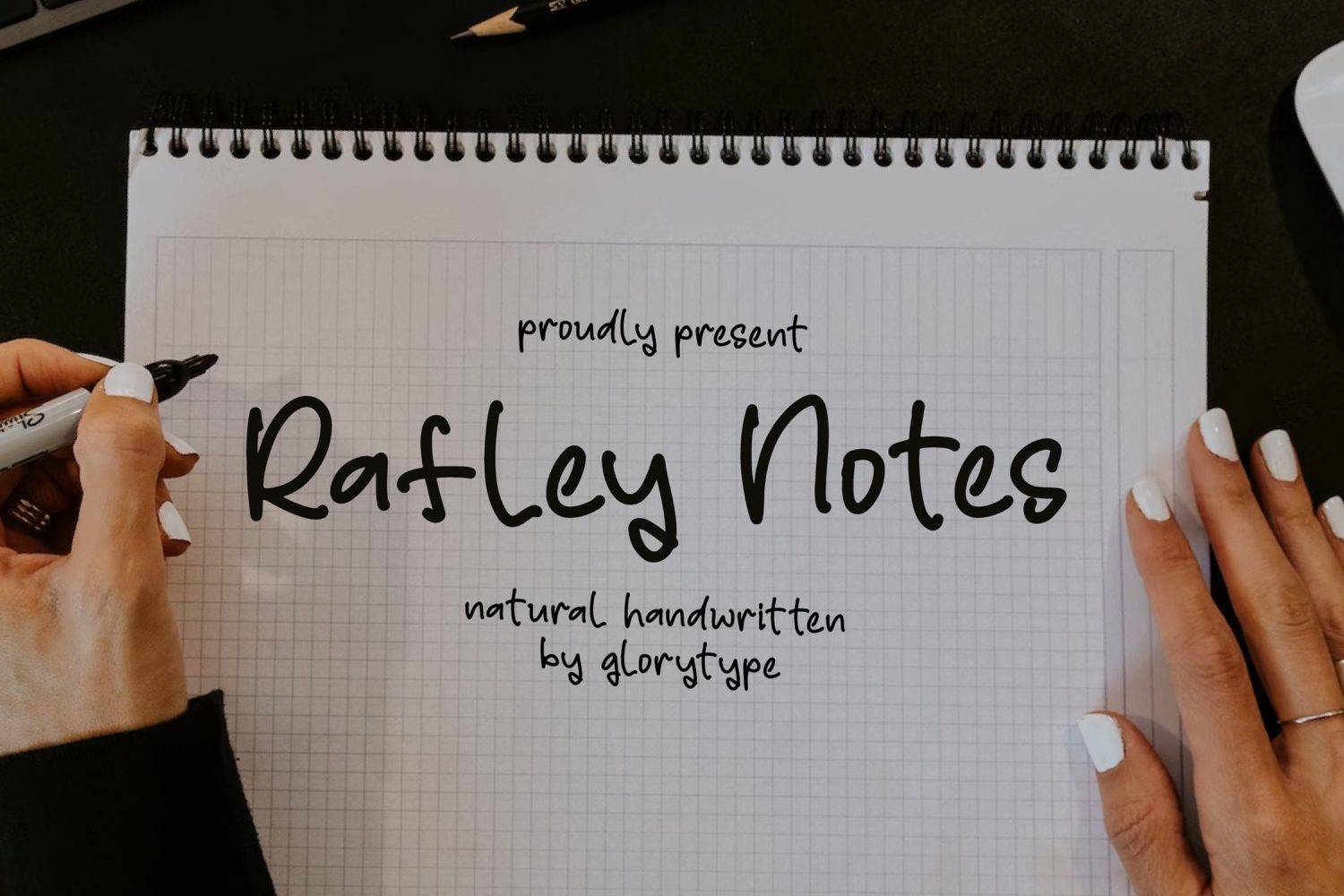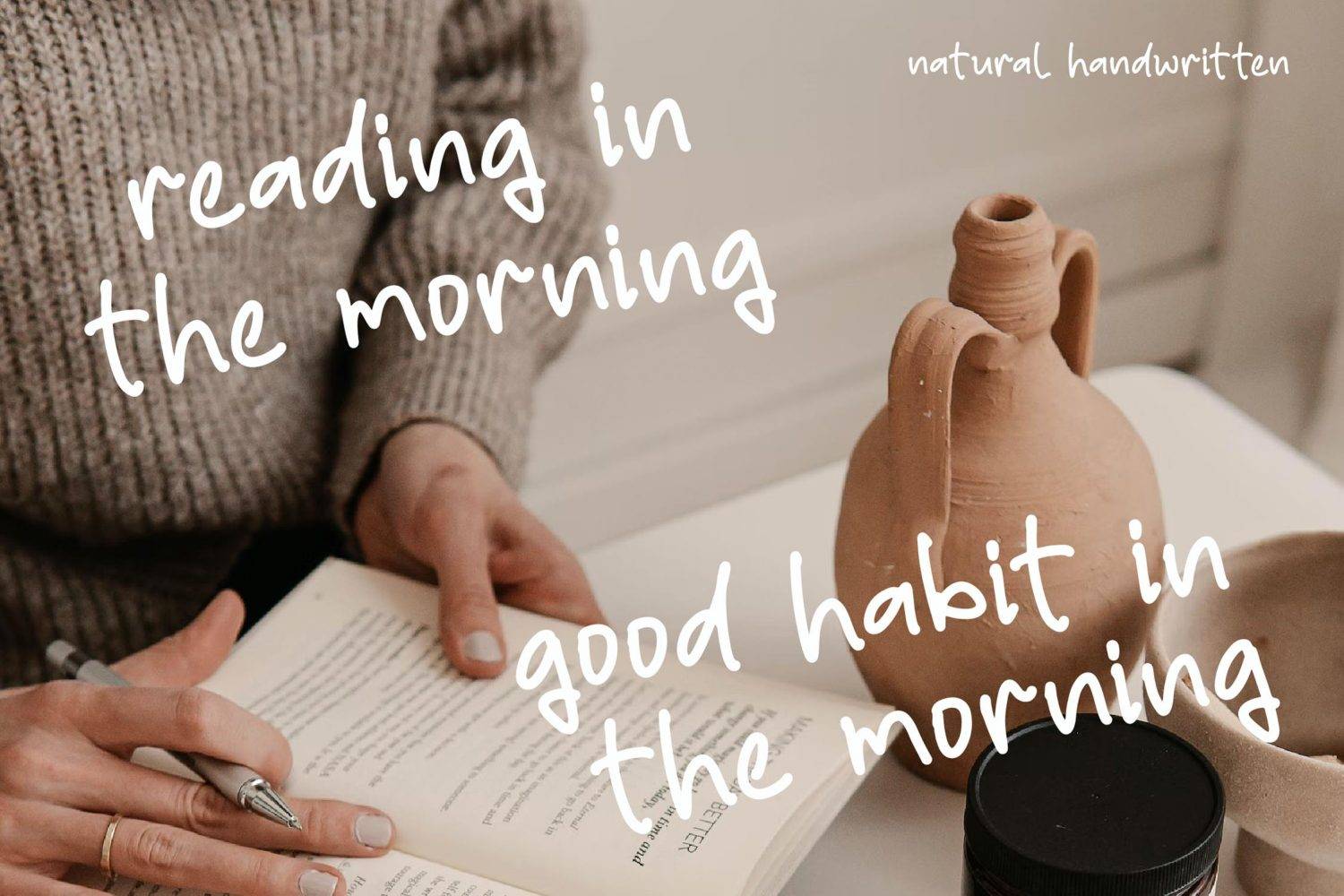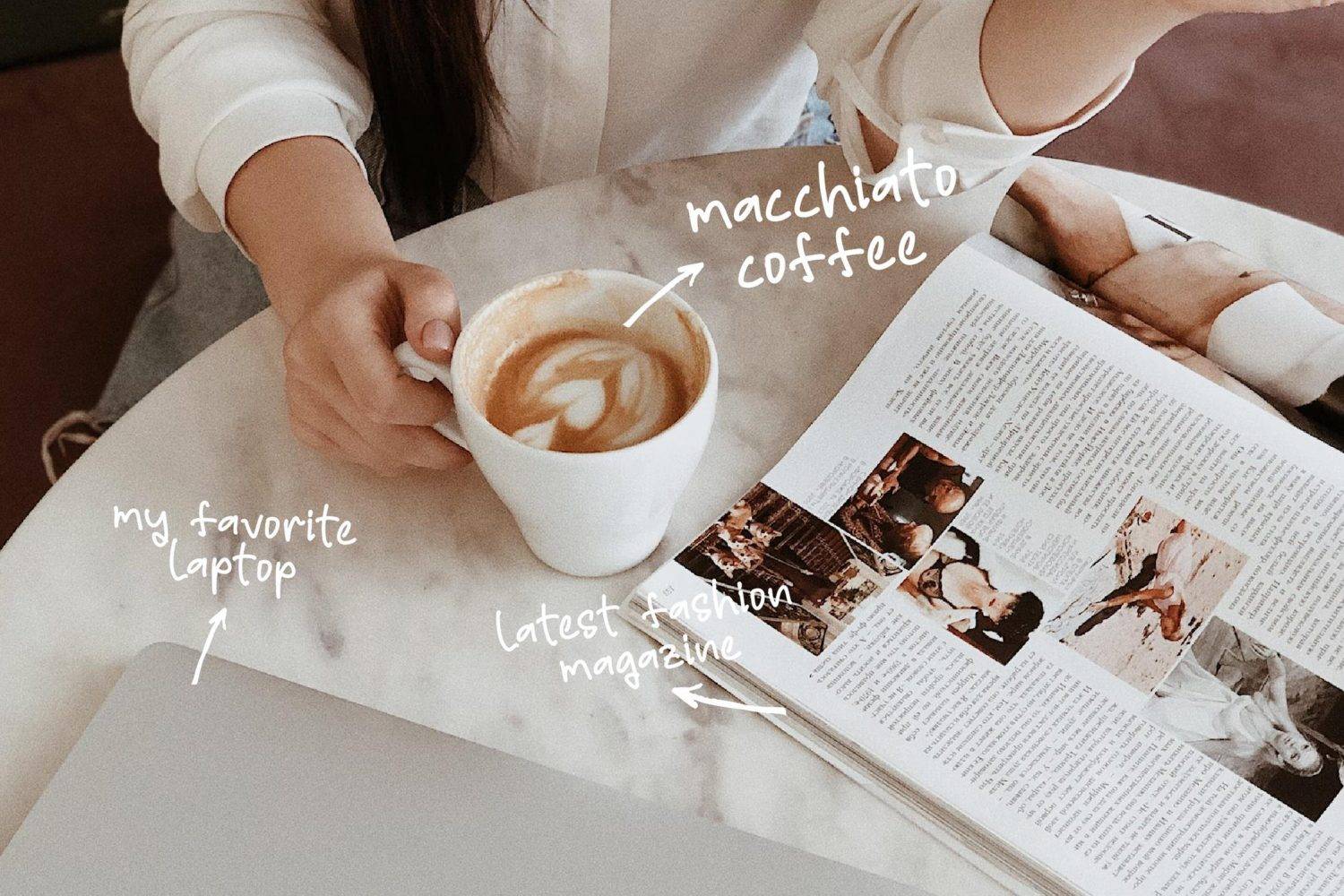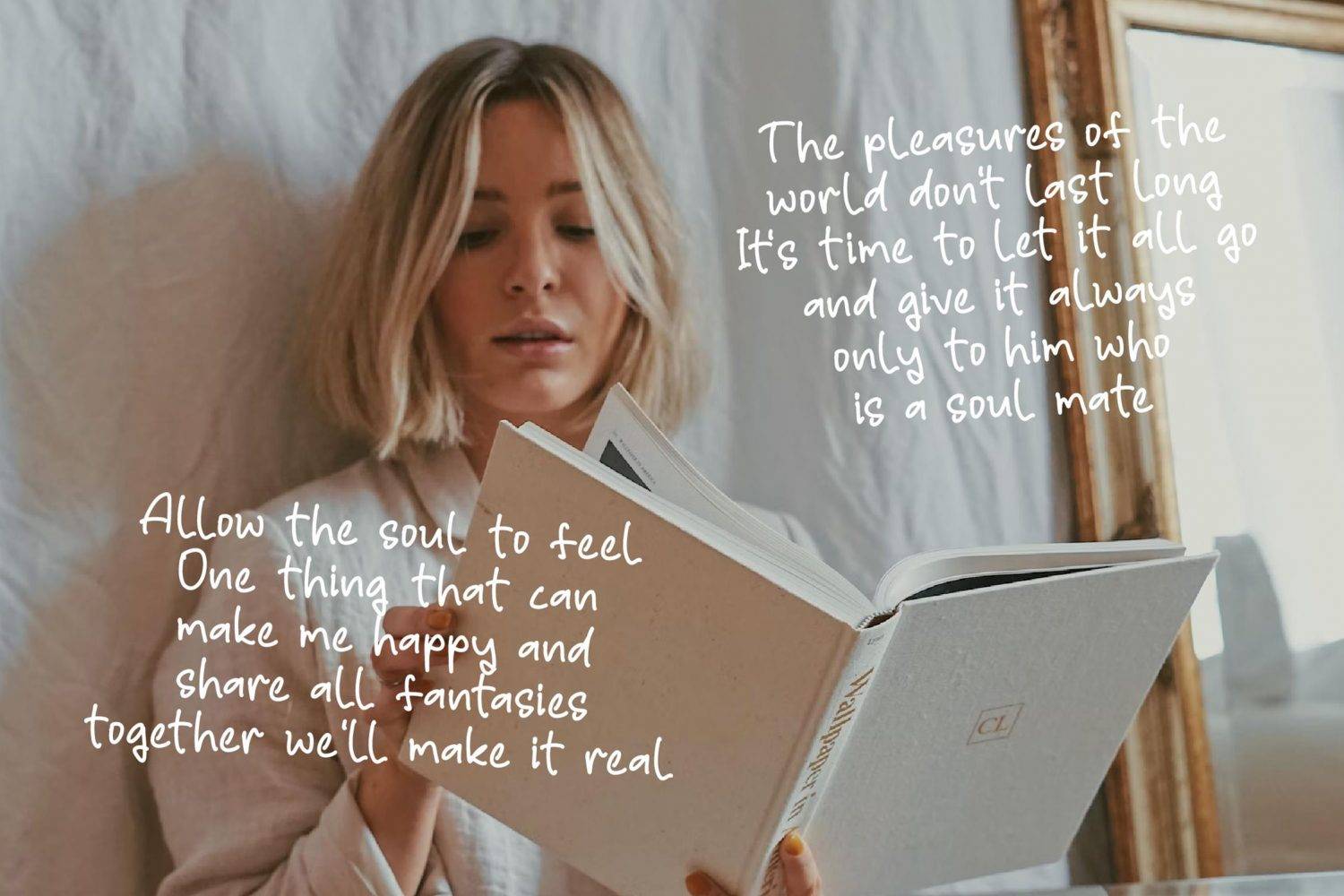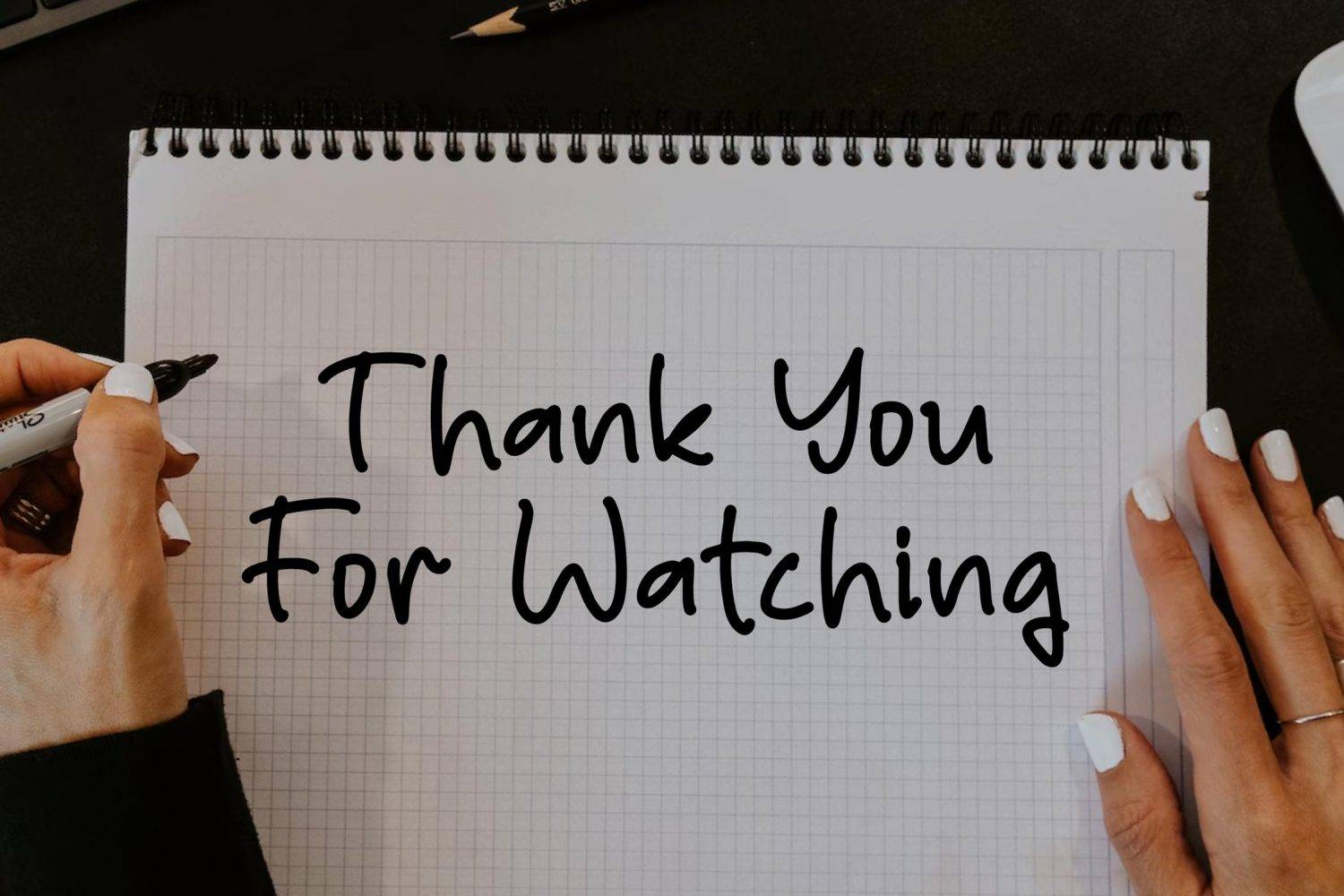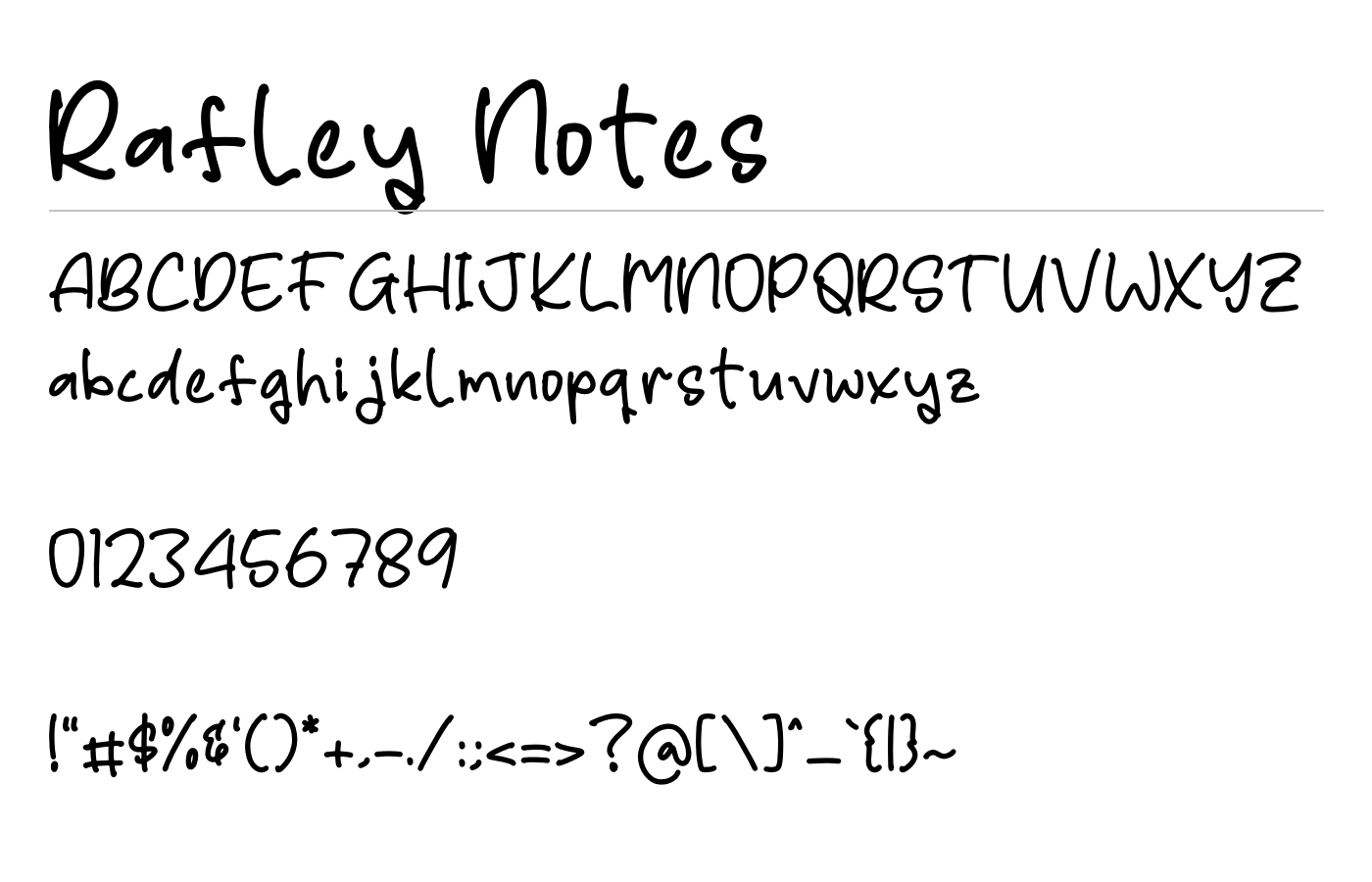
Rafley Notes is a casual, handwritten sans serif font that mimics natural pen strokes with a lively and friendly personality. Its medium weight and slightly condensed letterforms with varied stroke widths create an approachable and informal feel, perfect for personal notes, creative projects, and playful branding. This font works well in contexts where warmth and authenticity are desired, such as greeting cards, social media graphics, and informal headlines.